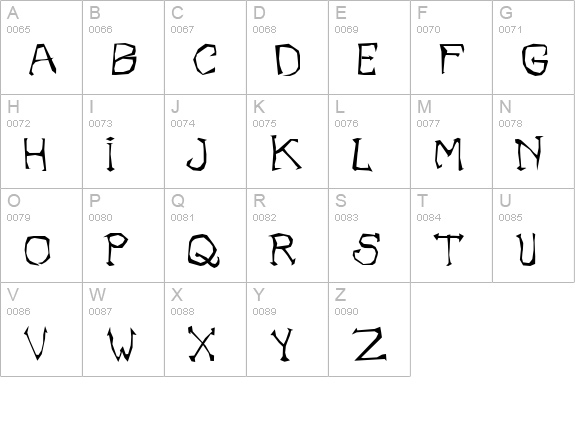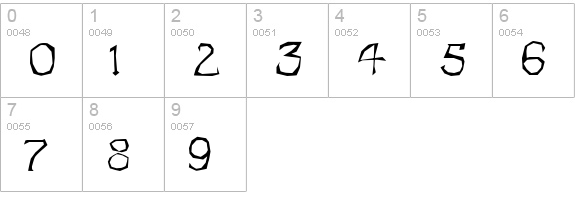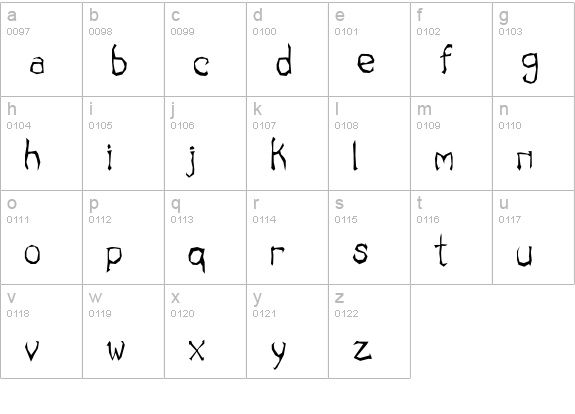
ILL oMen Font Details
Introducing the mesmerizing ILL oMen font, a captivating display typeface that exudes an air of enigmatic allure. Crafted with precision and artistic finesse, this font is sure to leave a lasting impression on any design project it graces. With its distinctive and unconventional letterforms, ILL oMen font adds a touch of mystique and intrigue to any creative endeavor. Its bold and eye-catching appearance commands attention, making it perfect for headlines, titles, logos, and posters that demand to be noticed. What sets ILL oMen font apart is not only its striking aesthetics but also its versatility. It effortlessly adapts to various design styles, ranging from vintage and retro to modern and futuristic, making it an ideal choice for designers looking to add an element of uniqueness to their work. Furthermore, ILL oMen font is not only visually captivating but also incredibly user-friendly. Its well-crafted letterforms ensure legibility, even at smaller sizes, making it suitable for both print and digital applications. Whether it's for editorial design, branding, or web design, this font seamlessly integrates into any project, enhancing its overall visual impact. And the best part? ILL oMen font is available for free! Yes, you read that right. This remarkable typeface can be freely downloaded at FontsMarket.com, a trusted source for high-quality fonts. Now, designers and creatives from all walks of life can access this remarkable font without any budget constraints, allowing their imagination to run wild and create stunning designs that leave a lasting impression. Experience the allure and intrigue of ILL oMen font today. Let its captivating letterforms breathe life into your designs, while you revel in the freedom of creativity that comes with using a freely available font. Don't miss out on this opportunity to elevate your designs and make a lasting impact. Download ILL oMen font now, exclusively at FontsMarket.com.